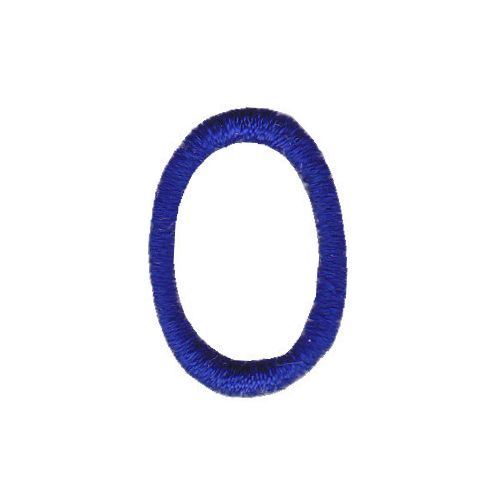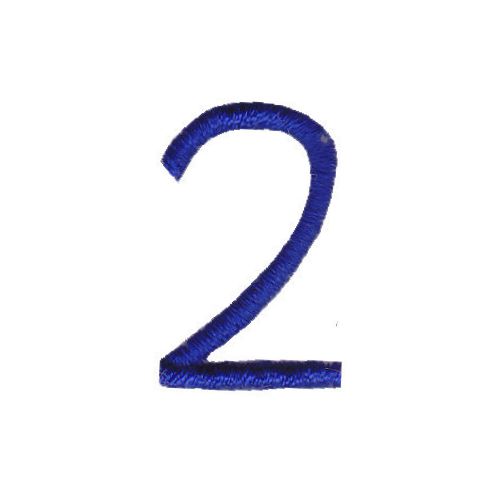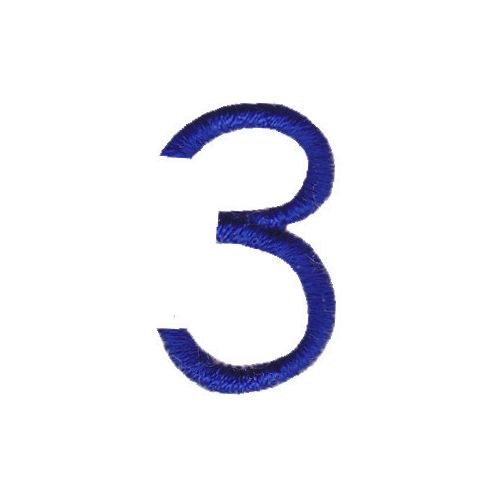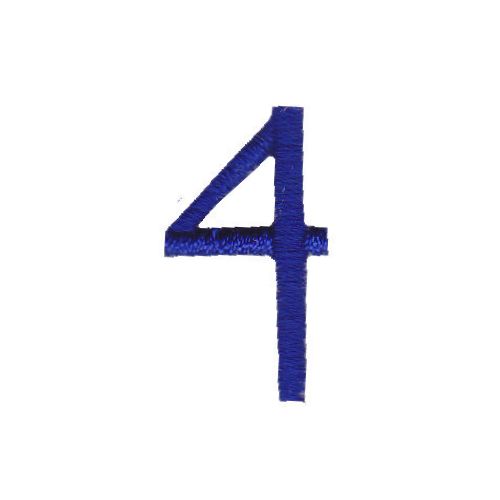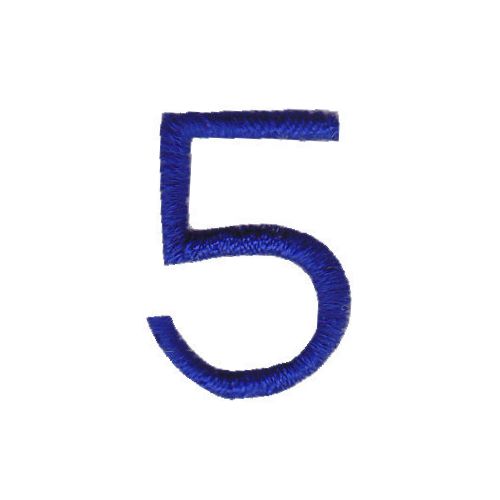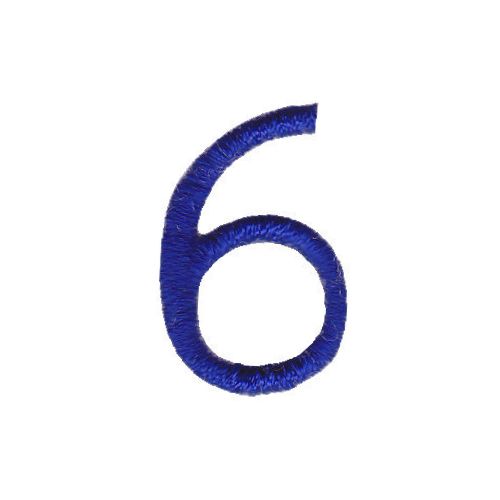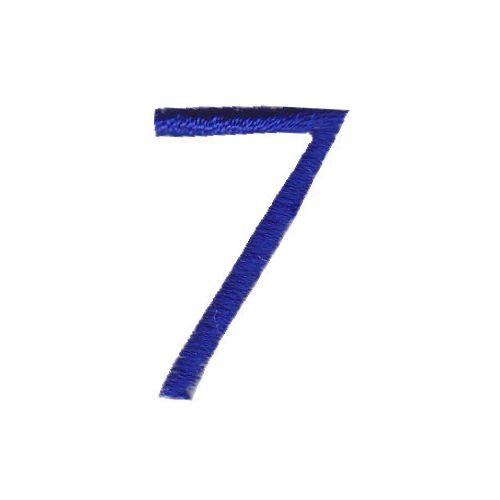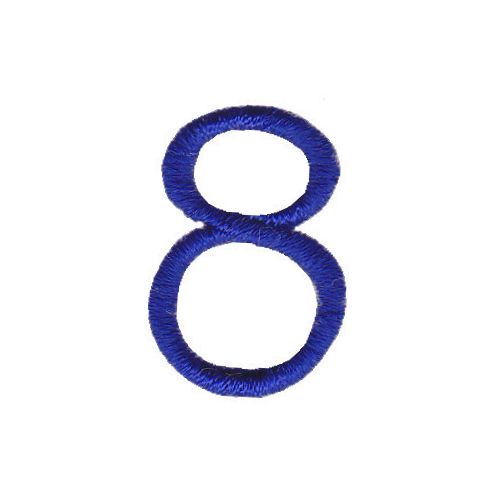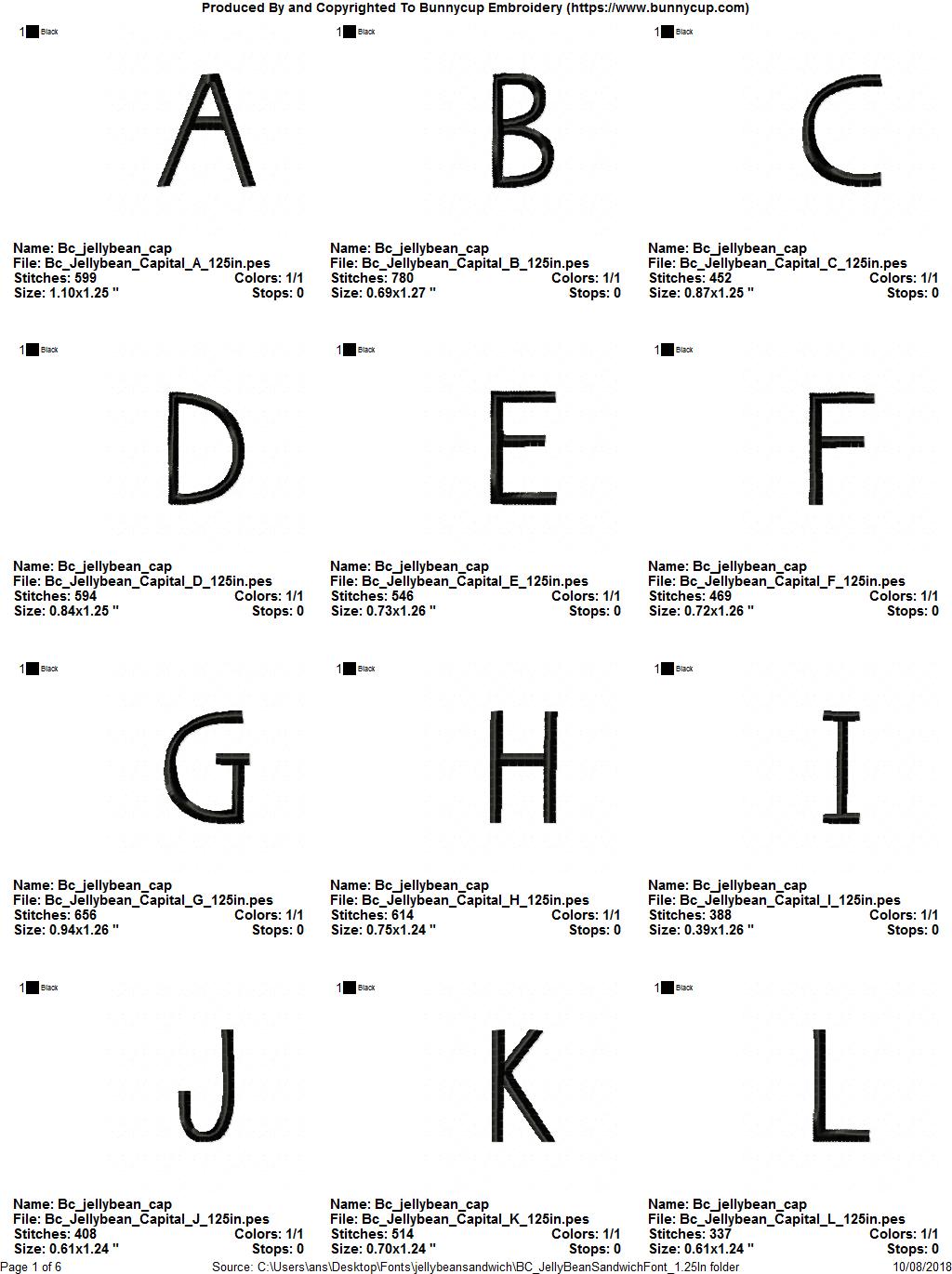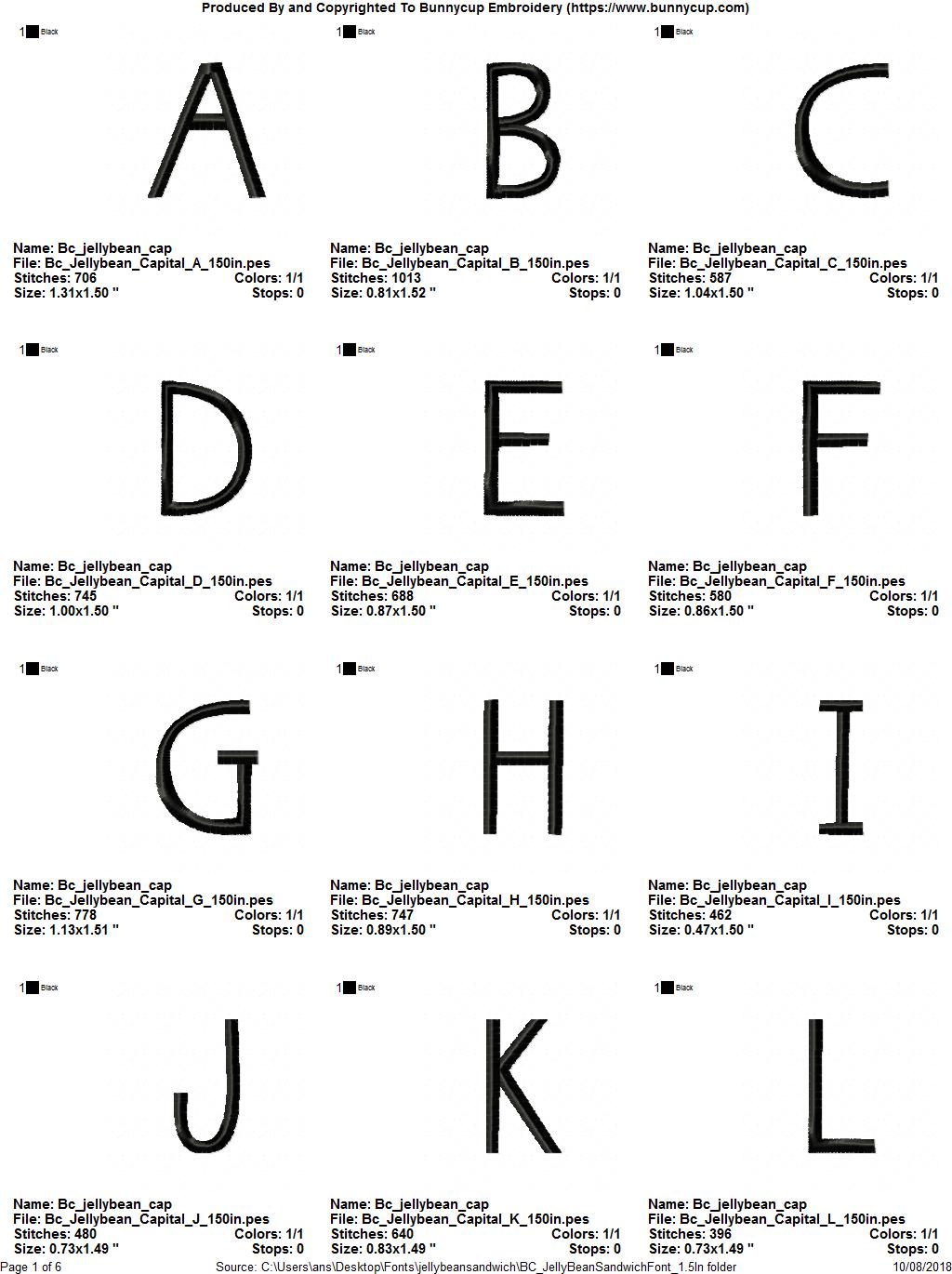
Jellybean Sandwich Font
Jellybean Sandwich is a clean, yet fun, embroidery font that comes in 5 great sizes - 1 Inch, 1.25 Inches, 1.5 Inches, 1.75 Inches and 2 Inches. The font includes Capitals, Lower Case and Numbers as displayed. BX files are also included for use with the Embrilliance software when purchasing the full alphabet set. Just choose your machine format, and the BX files will be included with your machine format files. See our full range of